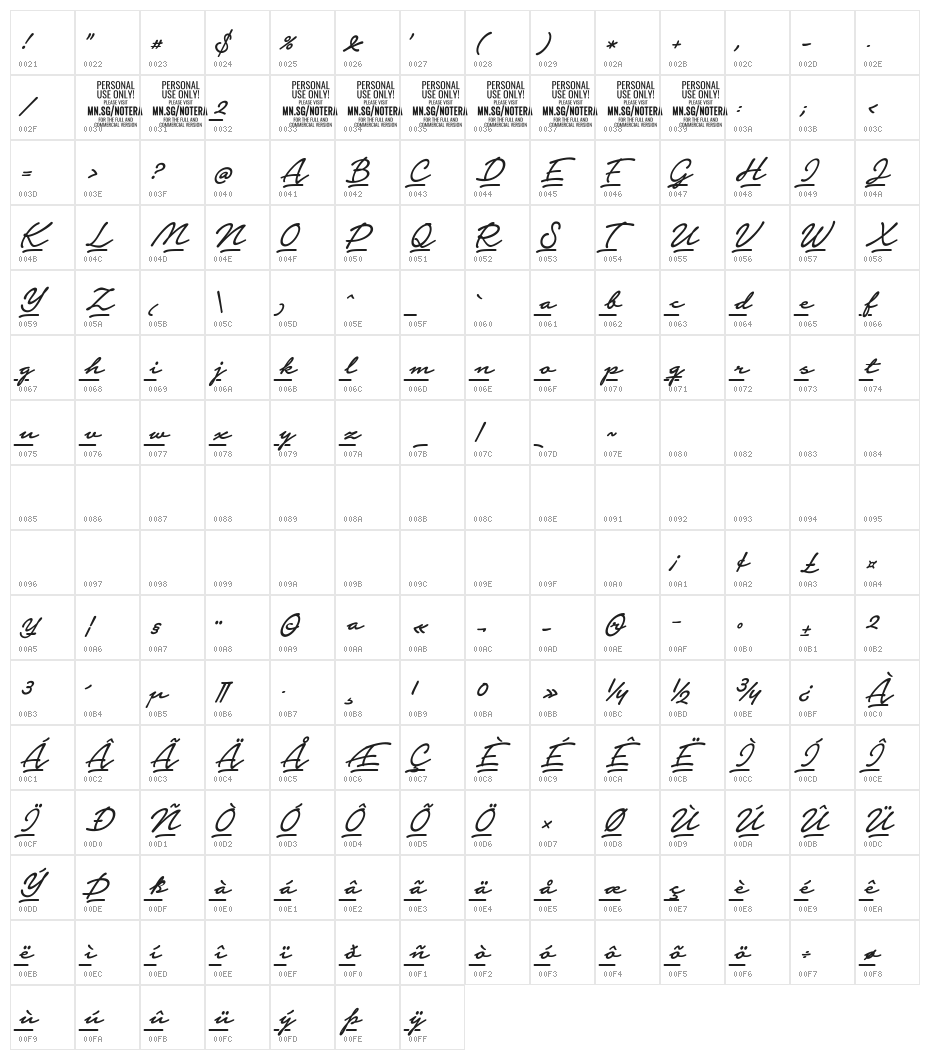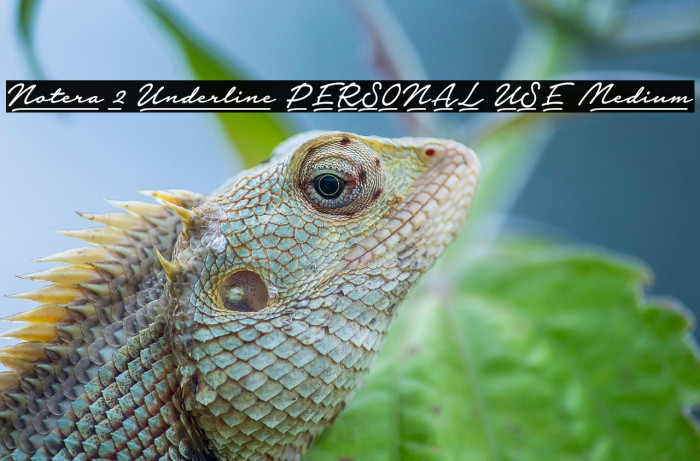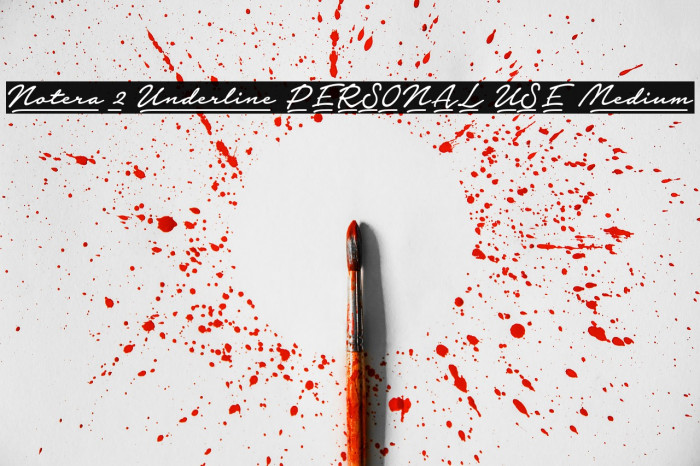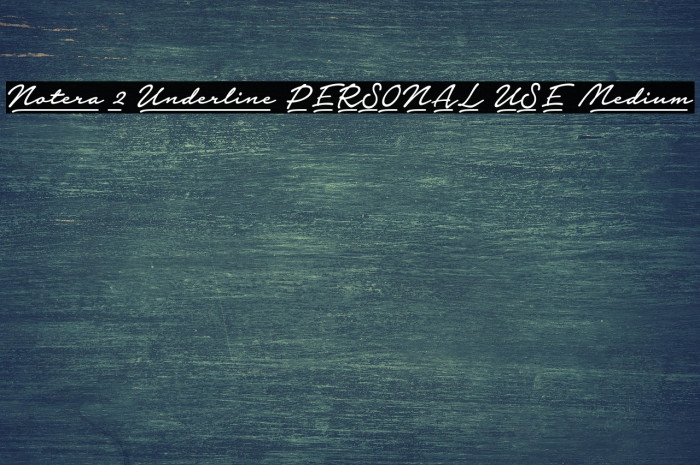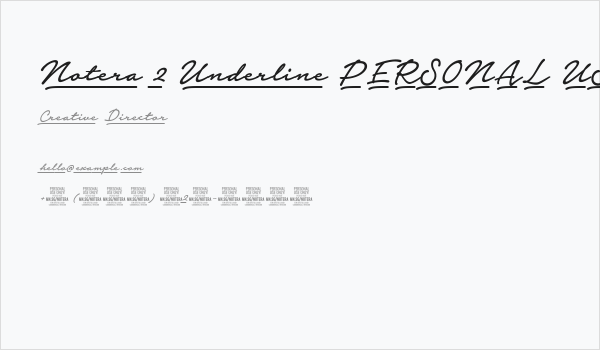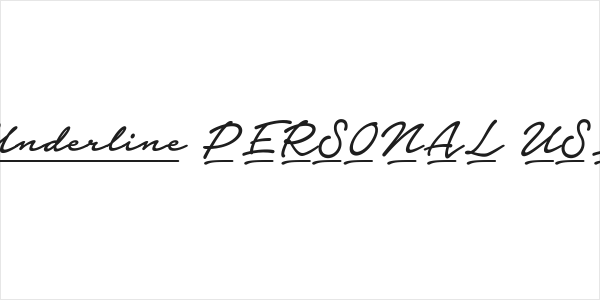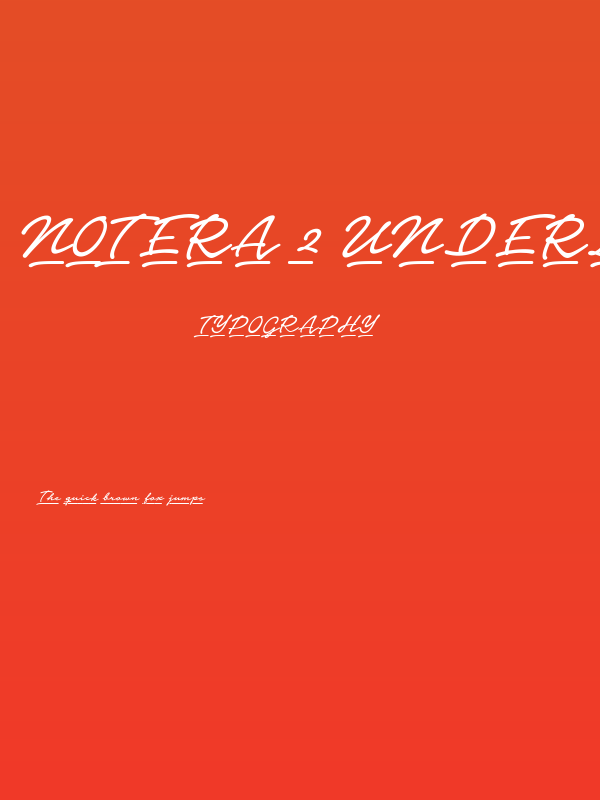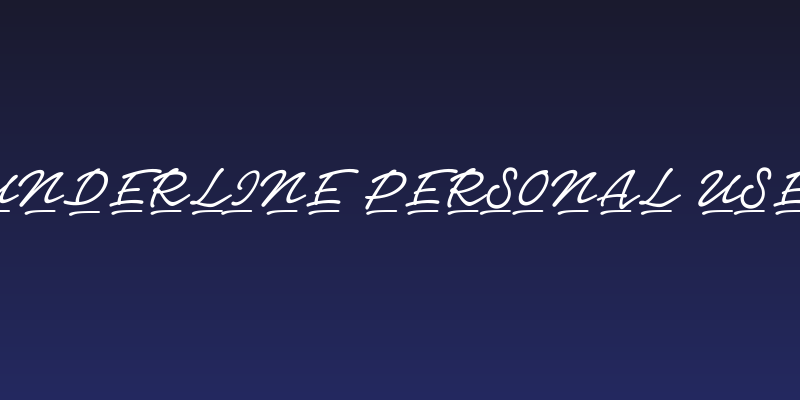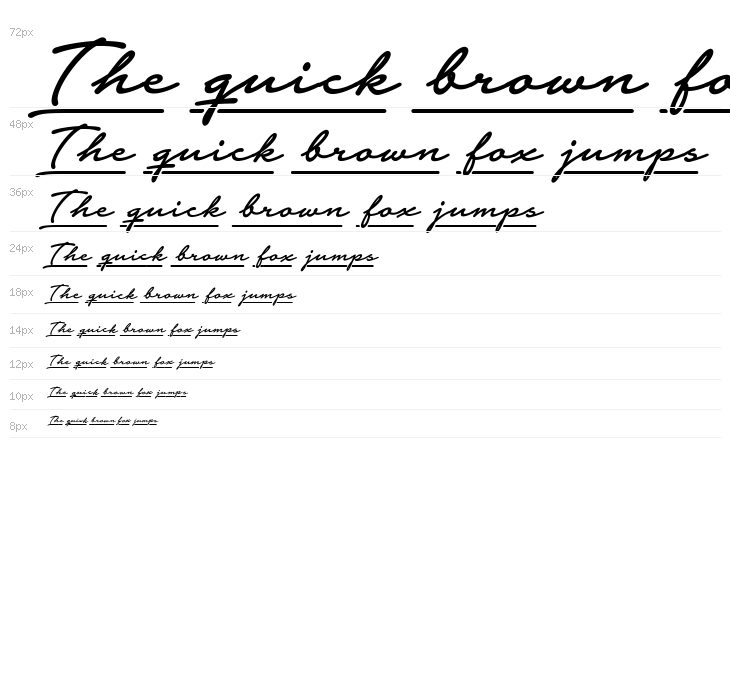
Notera 2 Underline PERSONAL USE Medium Font
Notera 2 Underline PERSONAL USE Medium Description
This font features a stylish and elegant script design with a distinctive underline beneath each character. The uppercase and lowercase letters flow seamlessly, creating a cohesive and fluid appearance. The strokes are smooth and slightly slanted, adding a dynamic and sophisticated touch. The font maintains a consistent weight throughout, providing a balanced and harmonious look. The inclusion of special characters and numbers ensures versatility for various design needs. Its unique underline feature sets it apart, making it ideal for creative and artistic projects.
| Use Case | Logos, Invitations, Artistic designs |
| Proposed Projects | Ideal for wedding invitations, branding, logos, and artistic designs. |